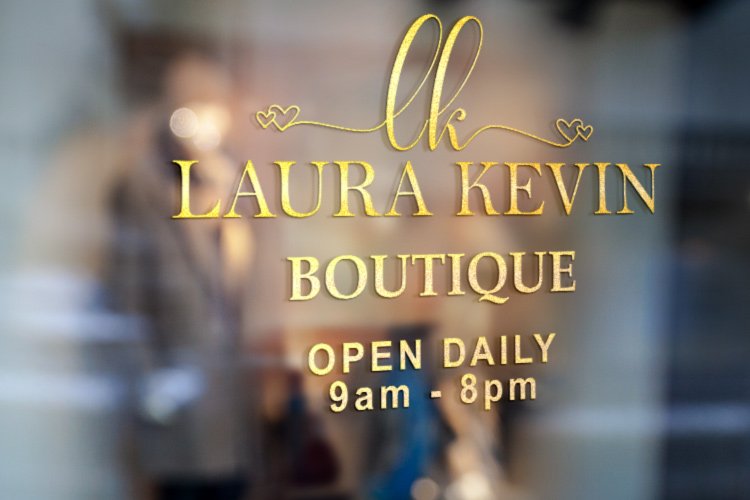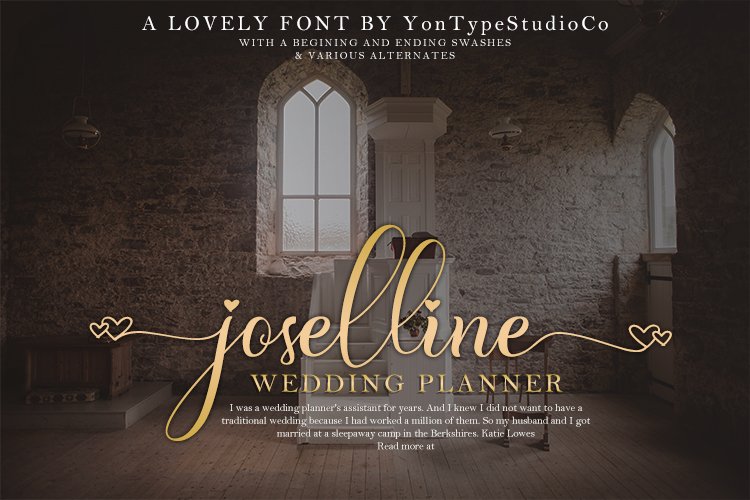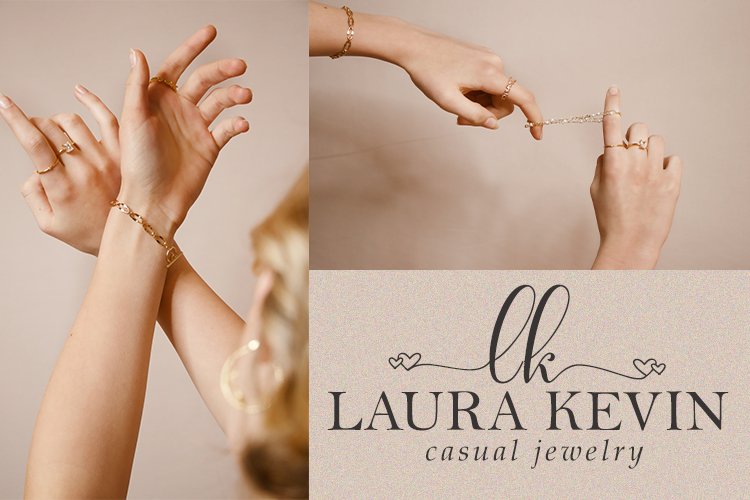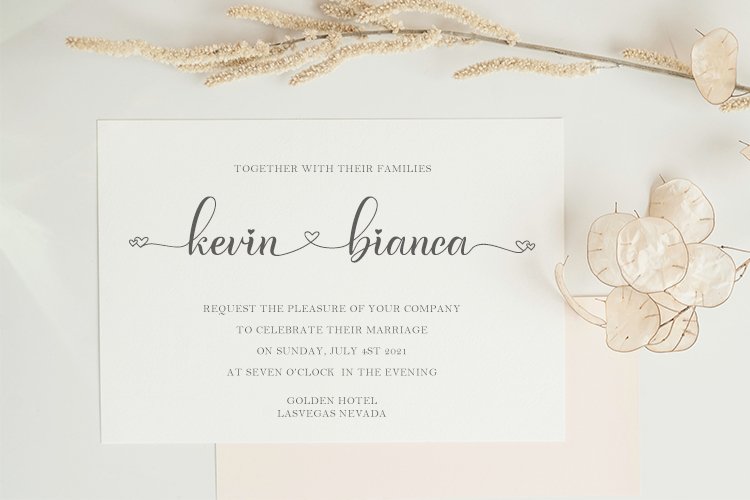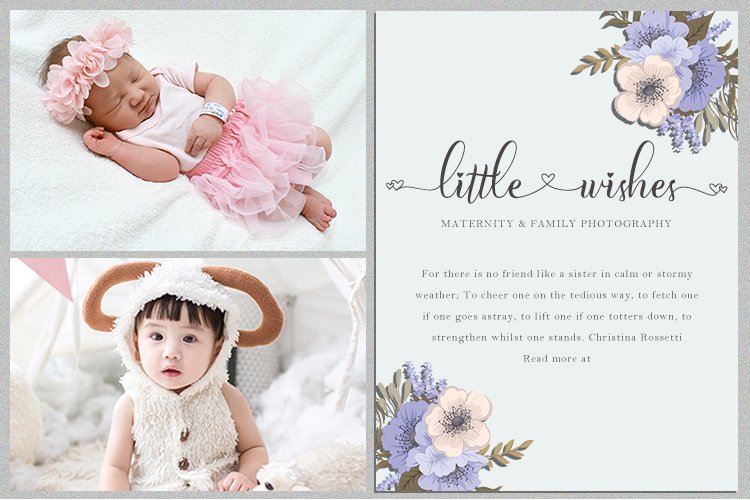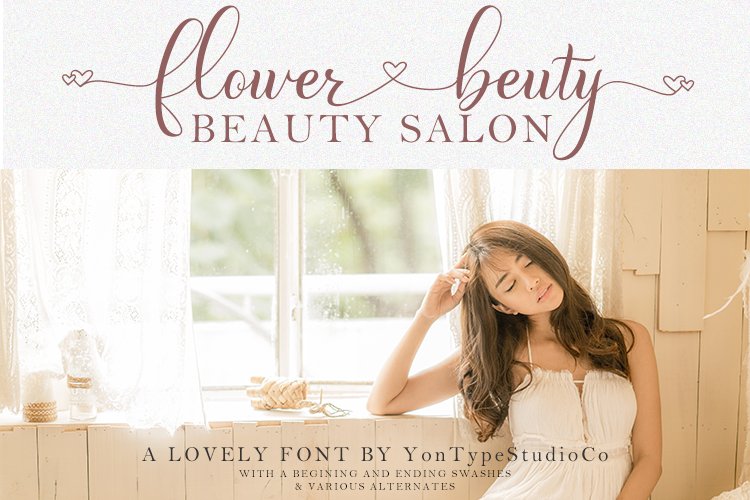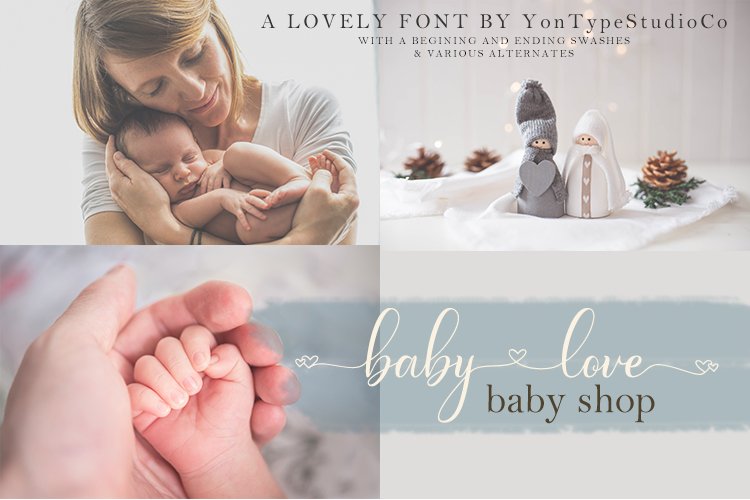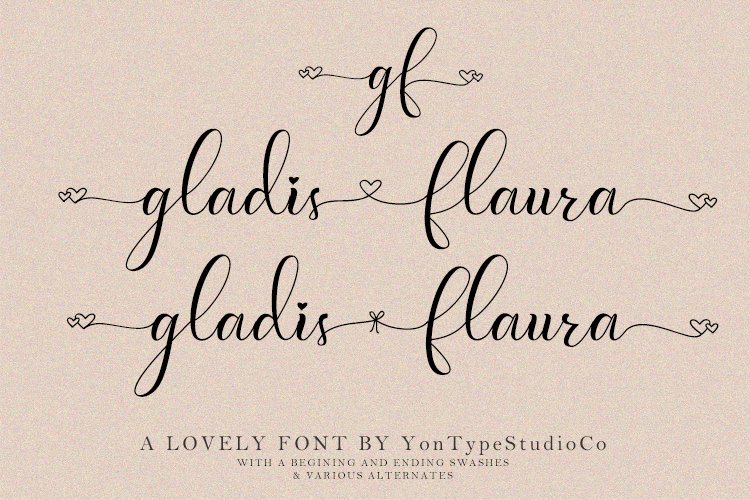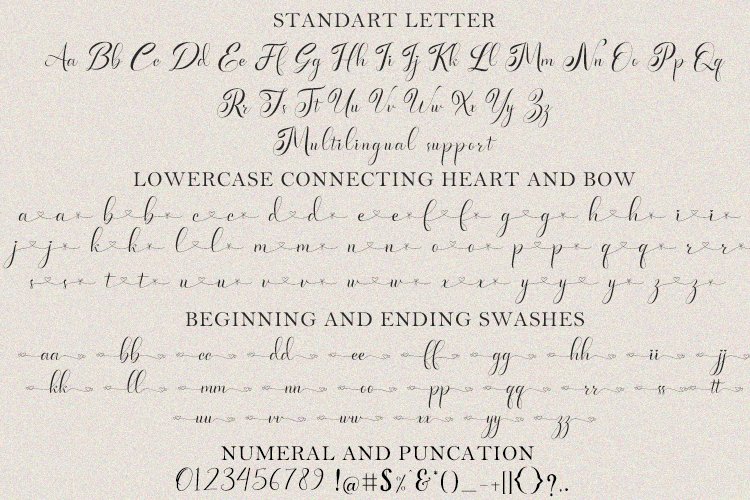
Fabella Flower is a gorgeous script perfect for branding, wedding invitations, and any other romantic project. Font Features:
Lowercase start and end swash
Uppercase starts swash
Connecting hearts
Initials